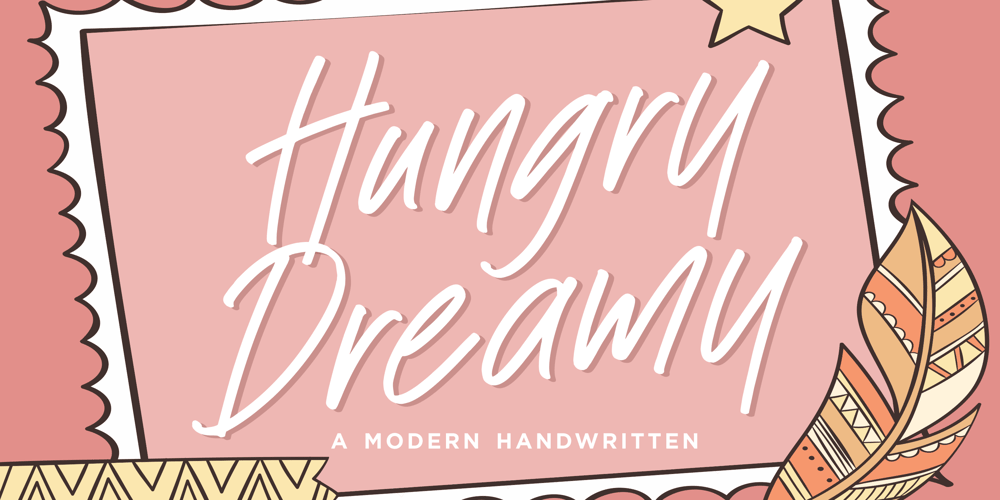
Hungry Dreamy Font Family was designed by Restu Angga and published by Balpirick. Hungry Dreamy contains 1 styles and family package options. Hungry Dreamy is a Handwritten Font.Whether you’re using it for crafts, digital design, presentations, or making greeting cards, this font has the potential to become your favorite go-to font, no matter the occasion! – also multilingual supportEnjoy the font! Feel free to comment or feedback!Thank you!